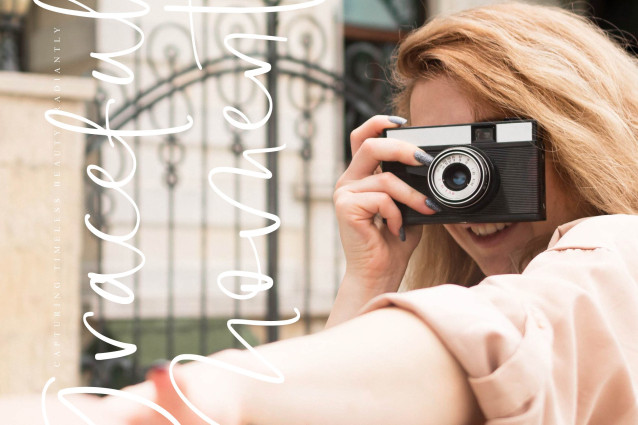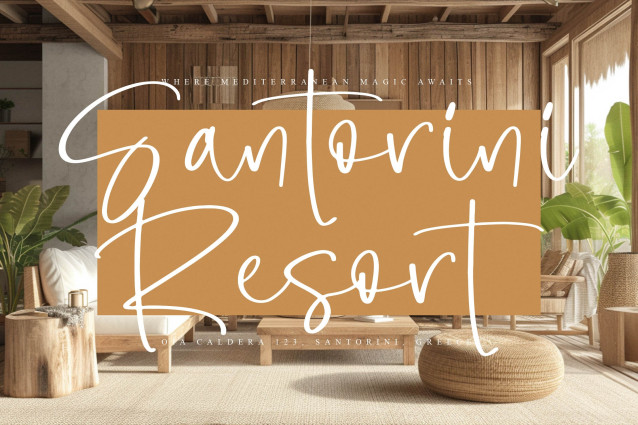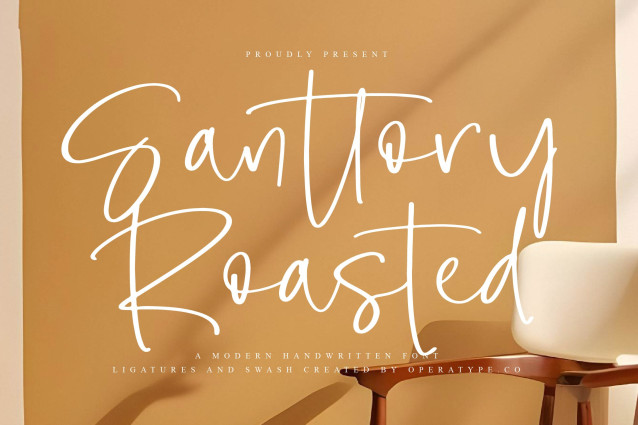
Santtory Roasted Font
**Santtory Roasted** is a modern handwritten script font crafted to bring warmth, elegance, and authenticity to your designs. Featuring smooth flowing strokes, graceful swashes, and beautifully balanced letterforms, this typeface delivers a sophisticated handwritten look while maintaining excellent readability. Inspired by natural signature lettering and contemporary calligraphy aesthetics, **Santtory Roasted** blends artistic handwritten movement with refined typography details to create a stylish and timeless visual identity. Its smooth rhythm and expressive curves give every word a personal and luxurious touch, making typography feel both elegant and approachable.
Designed for creators, brands, and professional designers who seek a premium handwritten style, **Santtory Roasted** effortlessly enhances logos, packaging, social media graphics, invitations, editorial layouts, and branding materials. The harmonious character flow and carefully crafted ligatures allow designers to create typography compositions that feel authentic, polished, and visually engaging.
Whether you’re building a fashion brand, designing wedding stationery, crafting premium product packaging, or creating eye-catching marketing materials, **Santtory Roasted** offers the perfect balance between modern sophistication and artistic expression. Elegant yet versatile, this typeface is thoughtfully designed for creatives who appreciate refined handwritten beauty, smooth typography flow, and memorable visual storytelling.